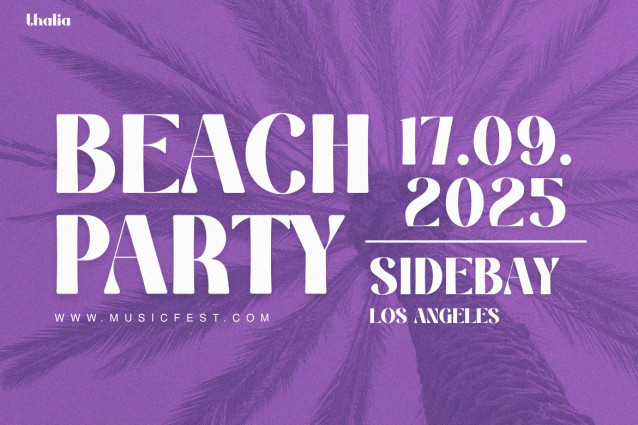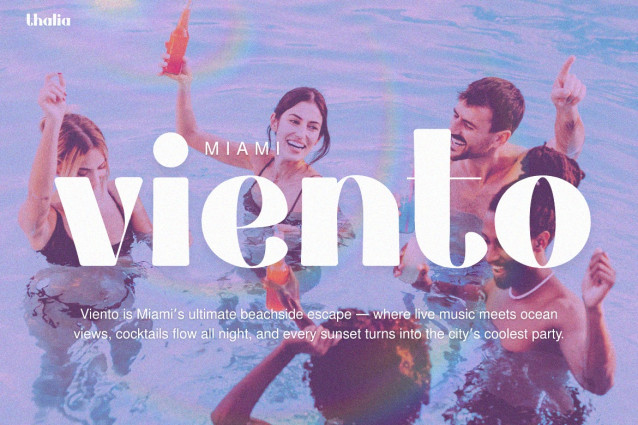
Thalia Typeface
Thalia Typeface: more than just a typeface—it’s pure glamour. With bold strokes, subtle curves, and trendy angles, this font commands attention at first glance. What’s more, it’s bold without being flashy, modern without being timeless, playful without being flashy. Each letter is designed to shine, energizing your text, transforming simple words into vivid, unforgettable images. So if you want your designs to exude style, Thalia is the ultimate weapon.